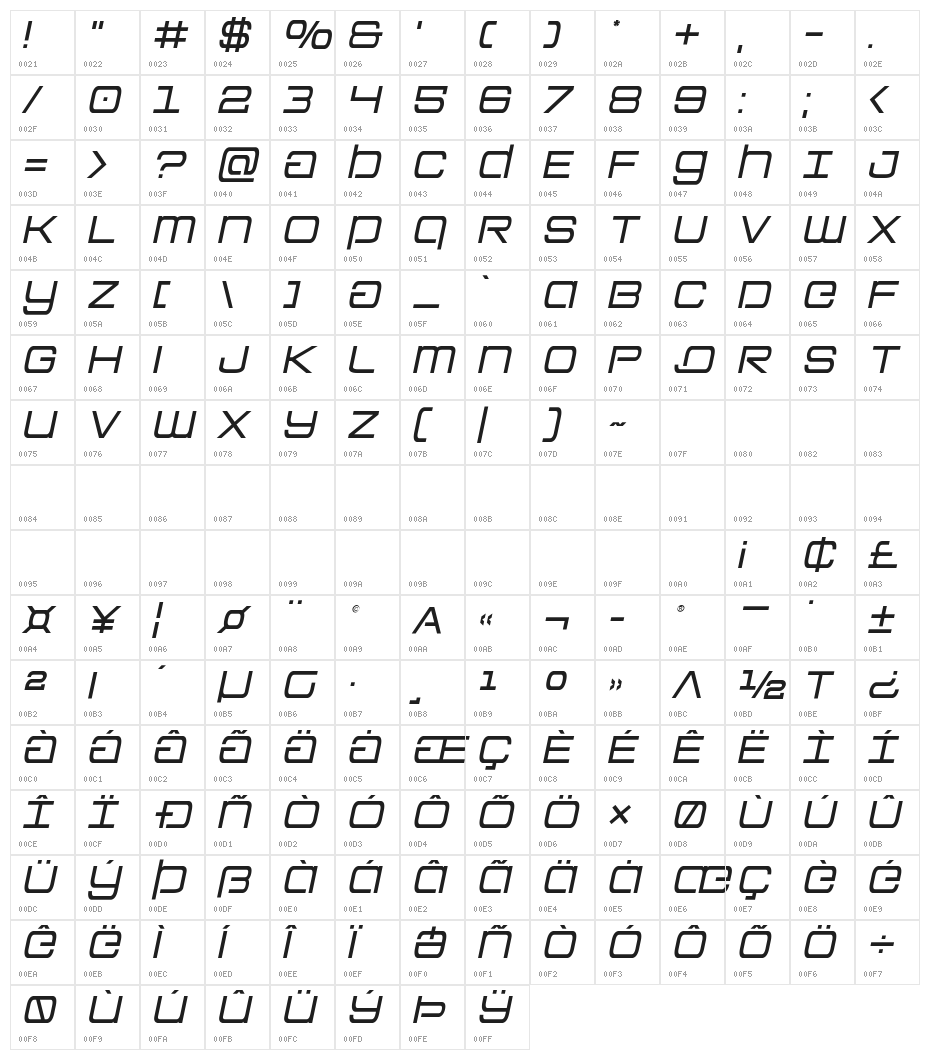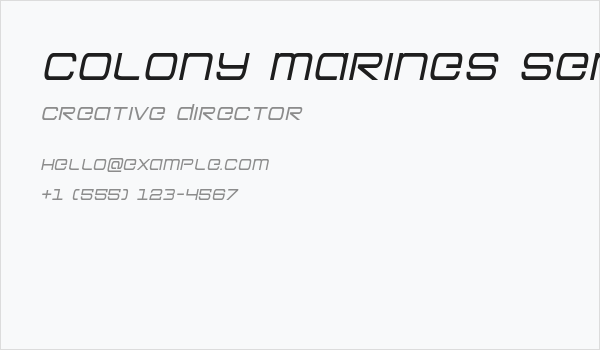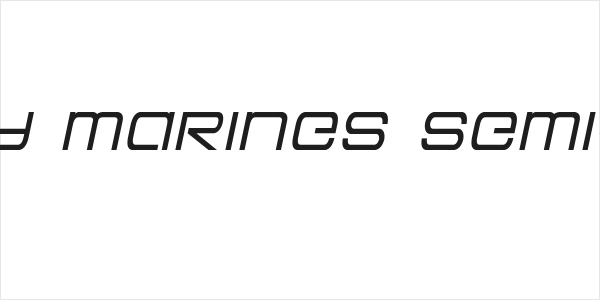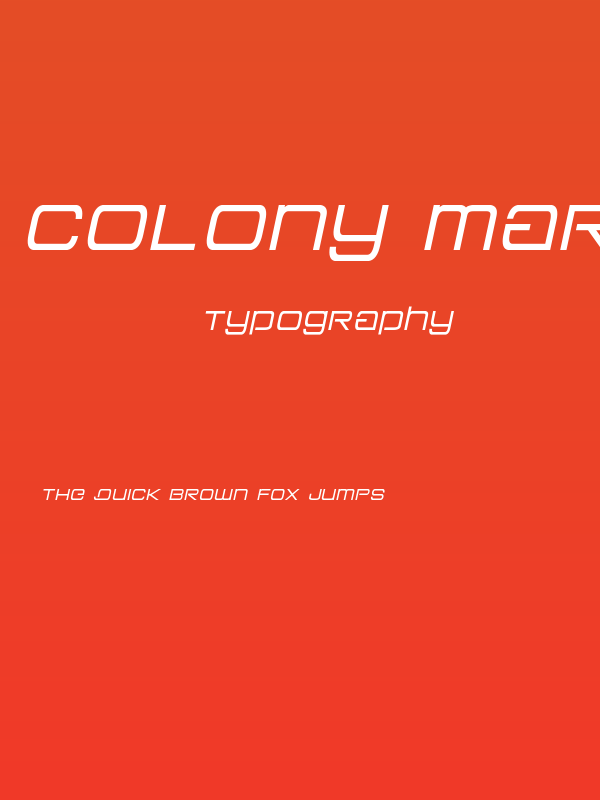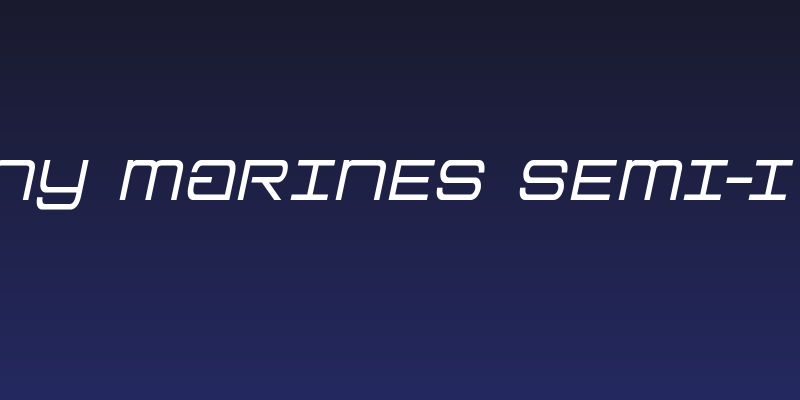
Colony Marines Semi-Italic Font
Colony Marines Semi-Italic Description
This font features a sleek, modern design with a semi-italic slant, giving it a dynamic and forward-leaning appearance. The characters are constructed with clean, geometric lines and rounded corners, providing a futuristic and technical feel. The uppercase and lowercase letters maintain a consistent style, with a slight variation in height and width that adds to the font's versatility. Numerals are distinct and easily readable, while the special characters complement the overall aesthetic. The font's structure is uniform, with a balanced weight that ensures clarity and legibility across different sizes.
| Use Case | Headlines, Logos, Digital Interfaces |
| Proposed Projects | Ideal for technology branding, sci-fi themed projects, modern advertising, and digital interfaces. |